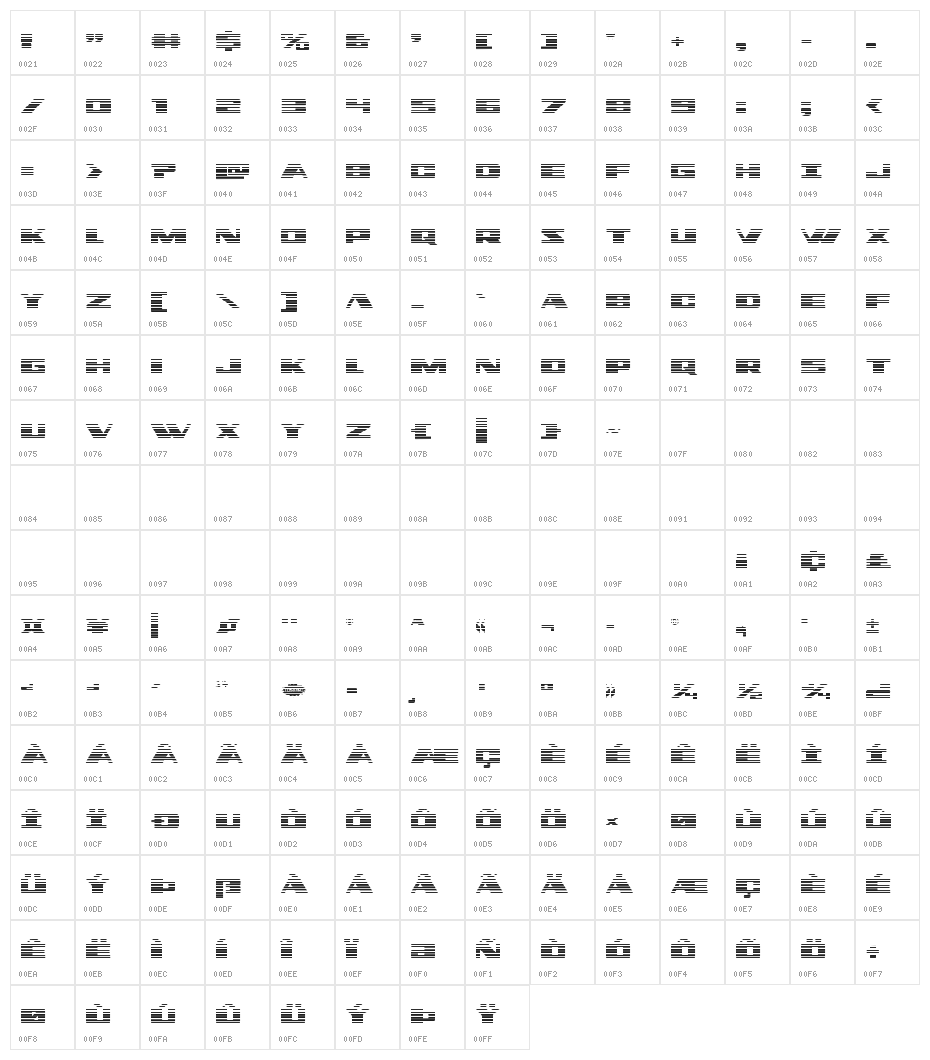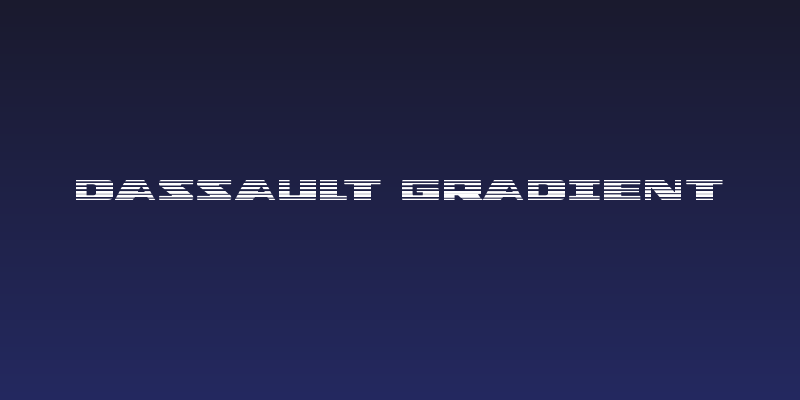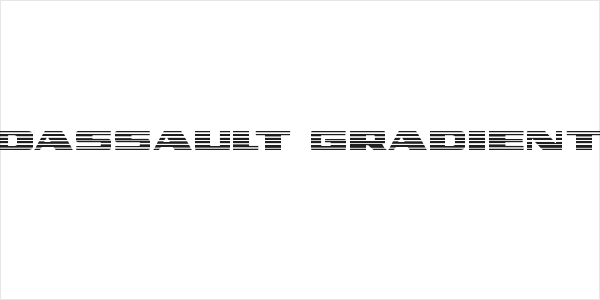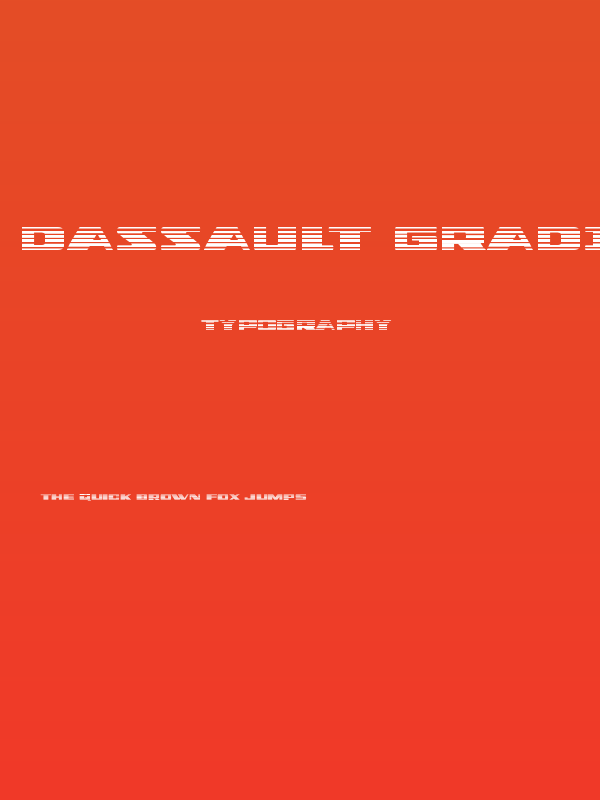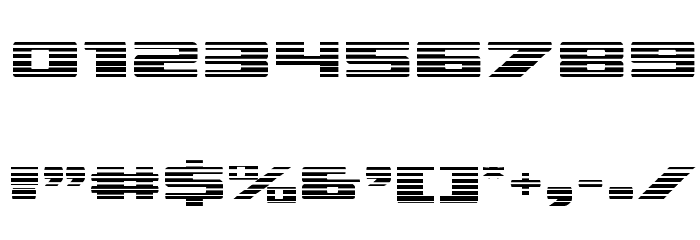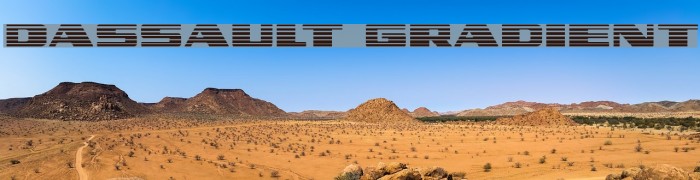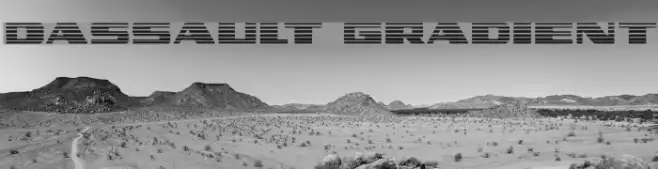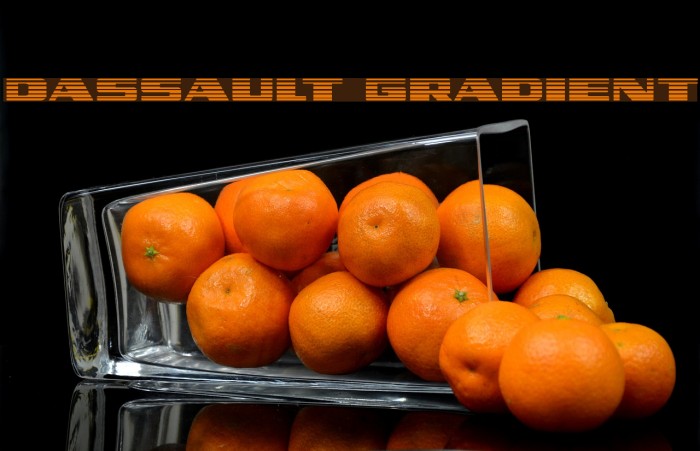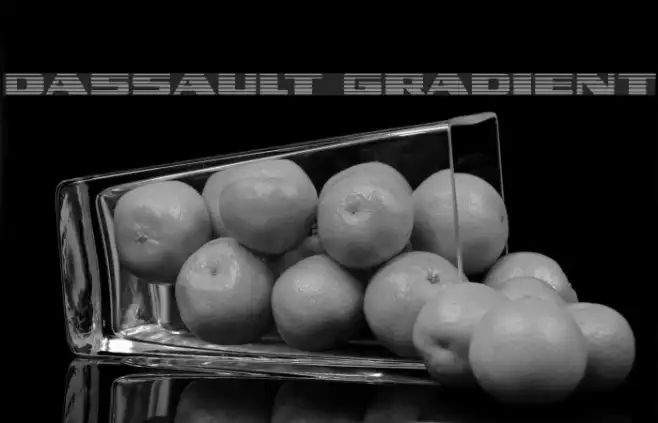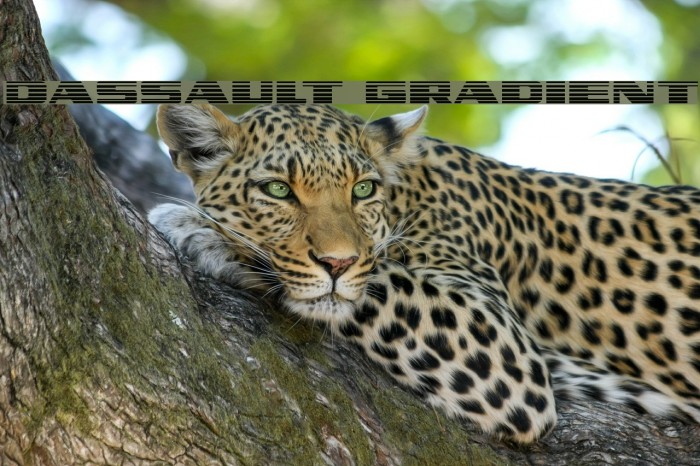
Dassault Gradient Font
Dassault Gradient Description
This font features a unique design with a horizontal striped pattern running through each character, creating a dynamic and futuristic appearance. The uppercase and lowercase letters, as well as the numbers and special characters, maintain a consistent style that emphasizes boldness and modernity. The geometric shapes of the letters are accentuated by the gradient-like lines, giving the font a sense of movement and depth. This design is particularly eye-catching and would stand out in any digital or print medium.